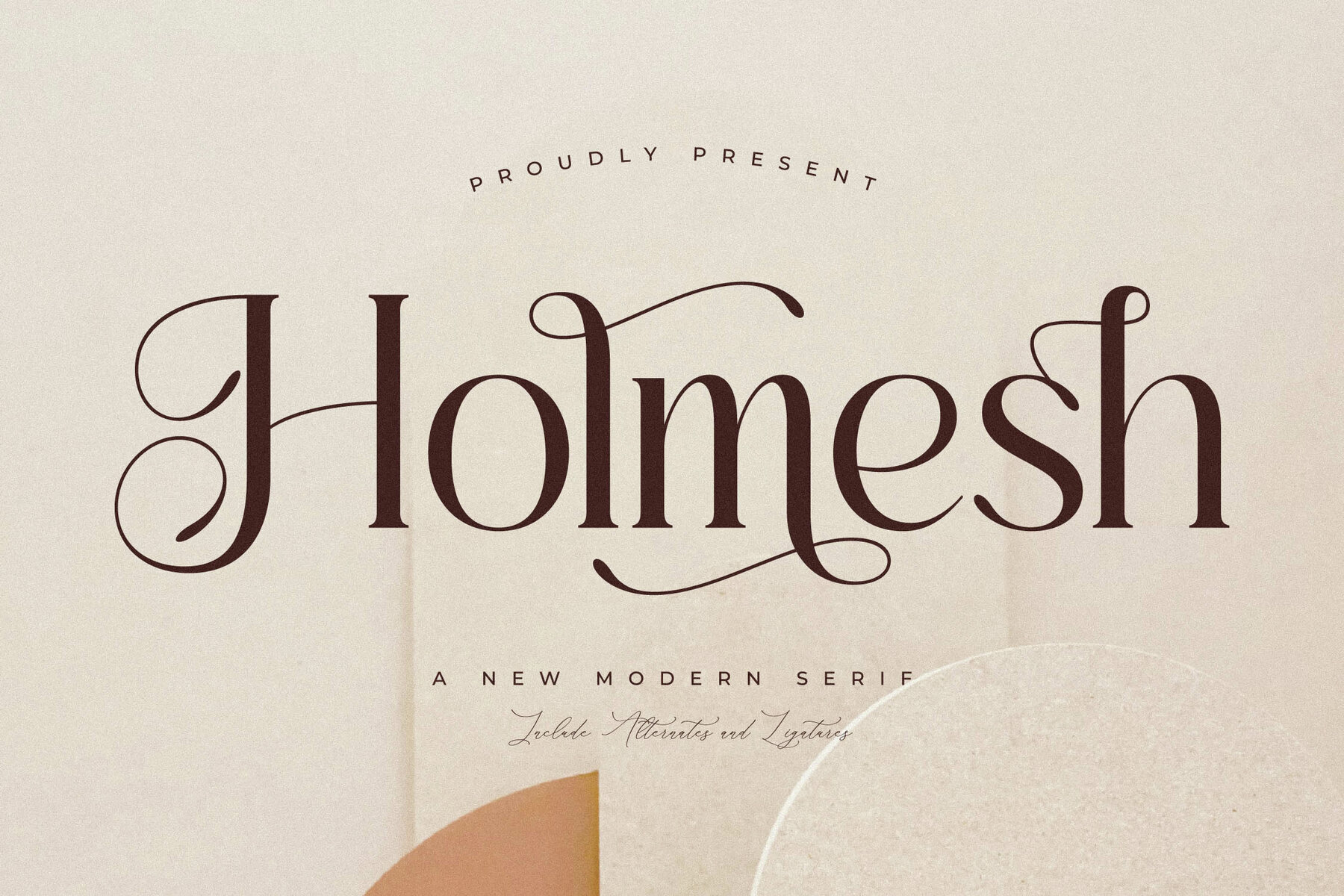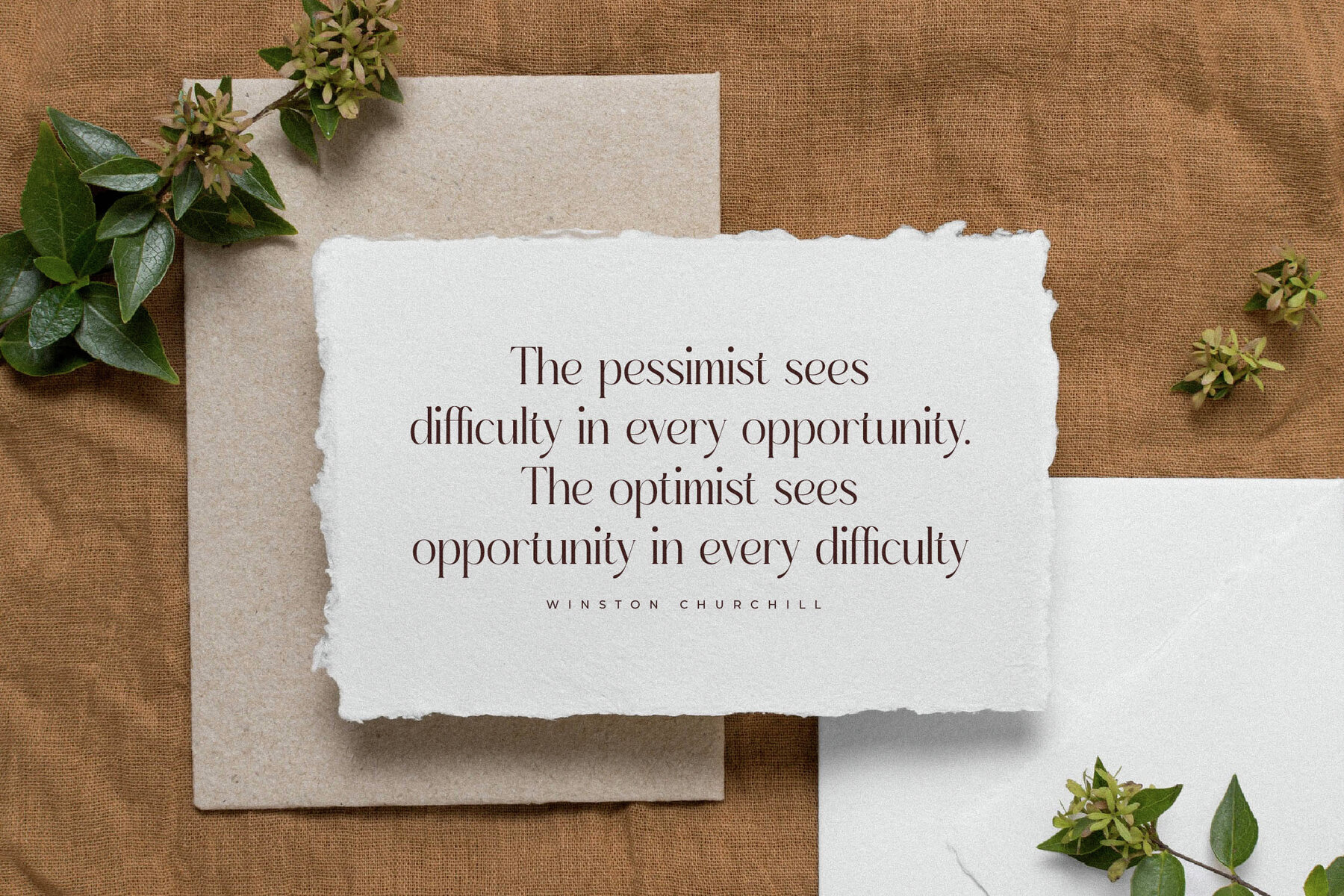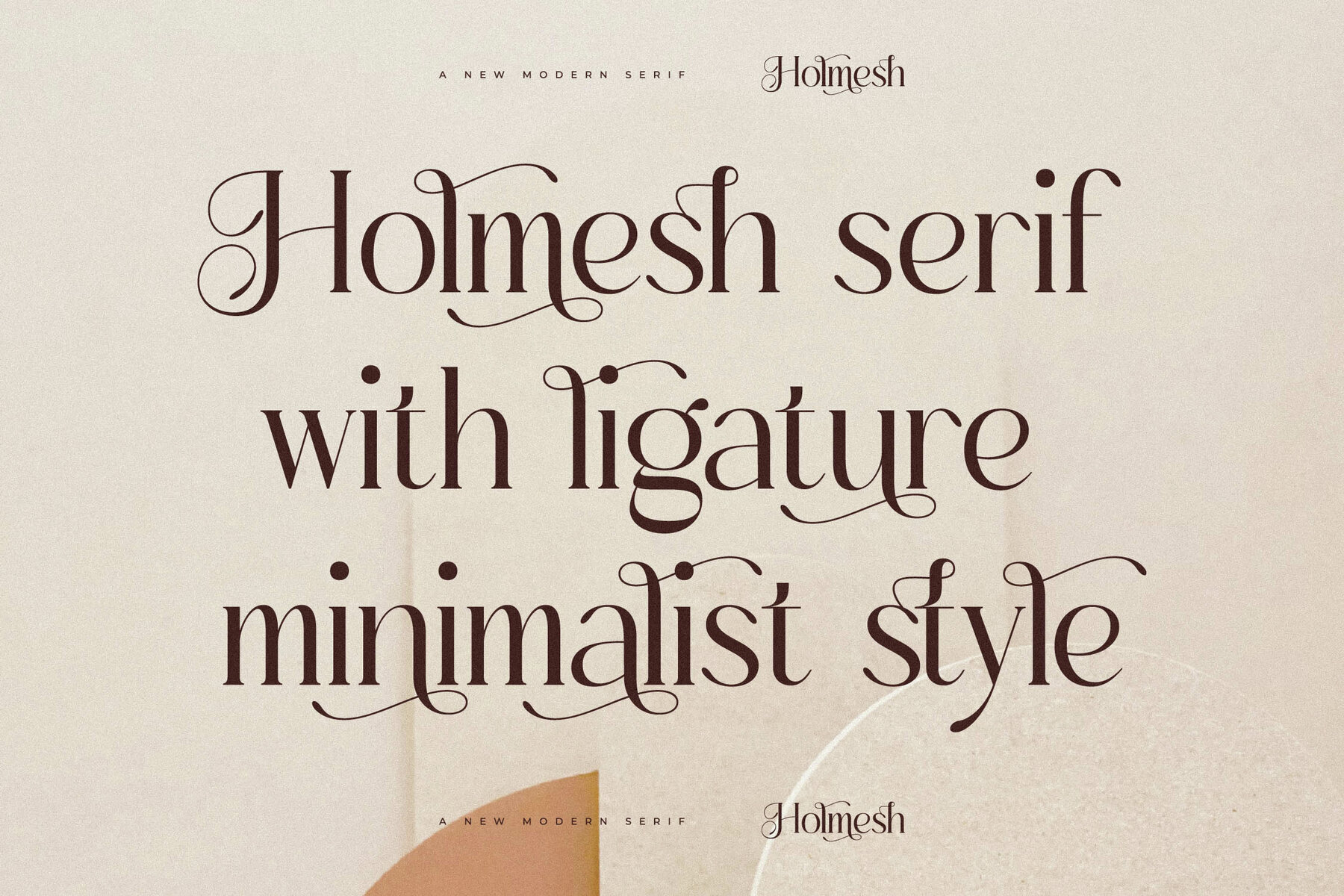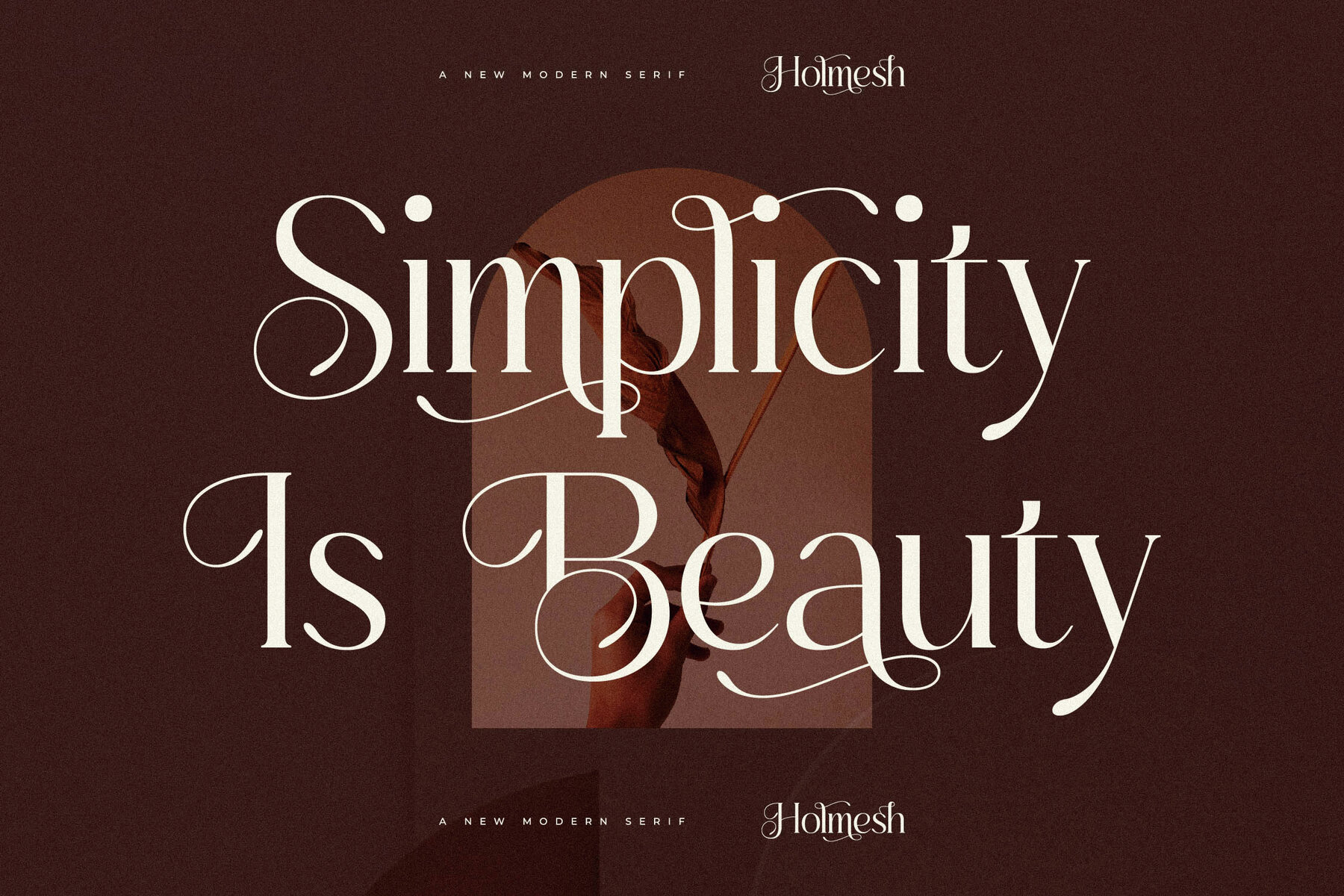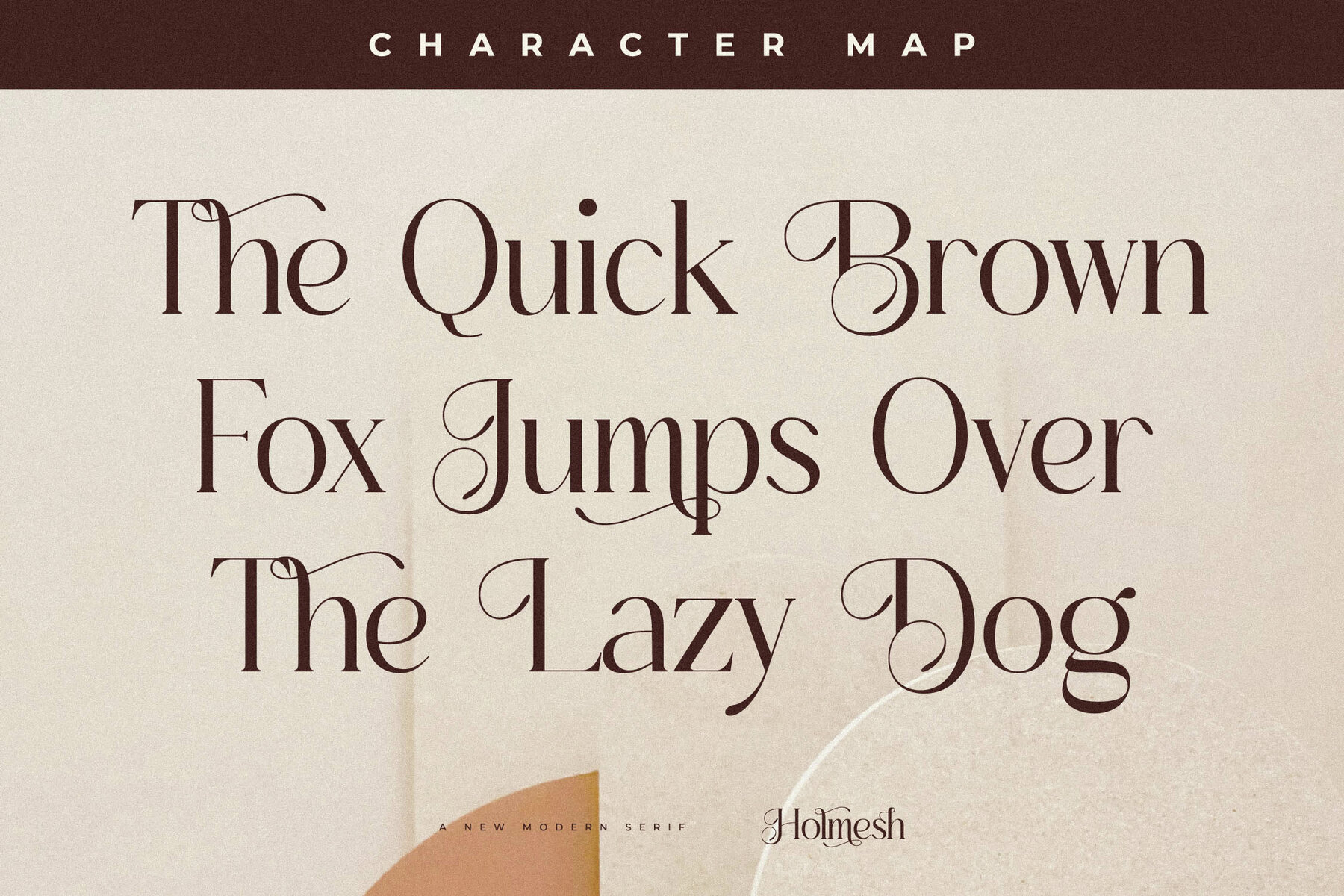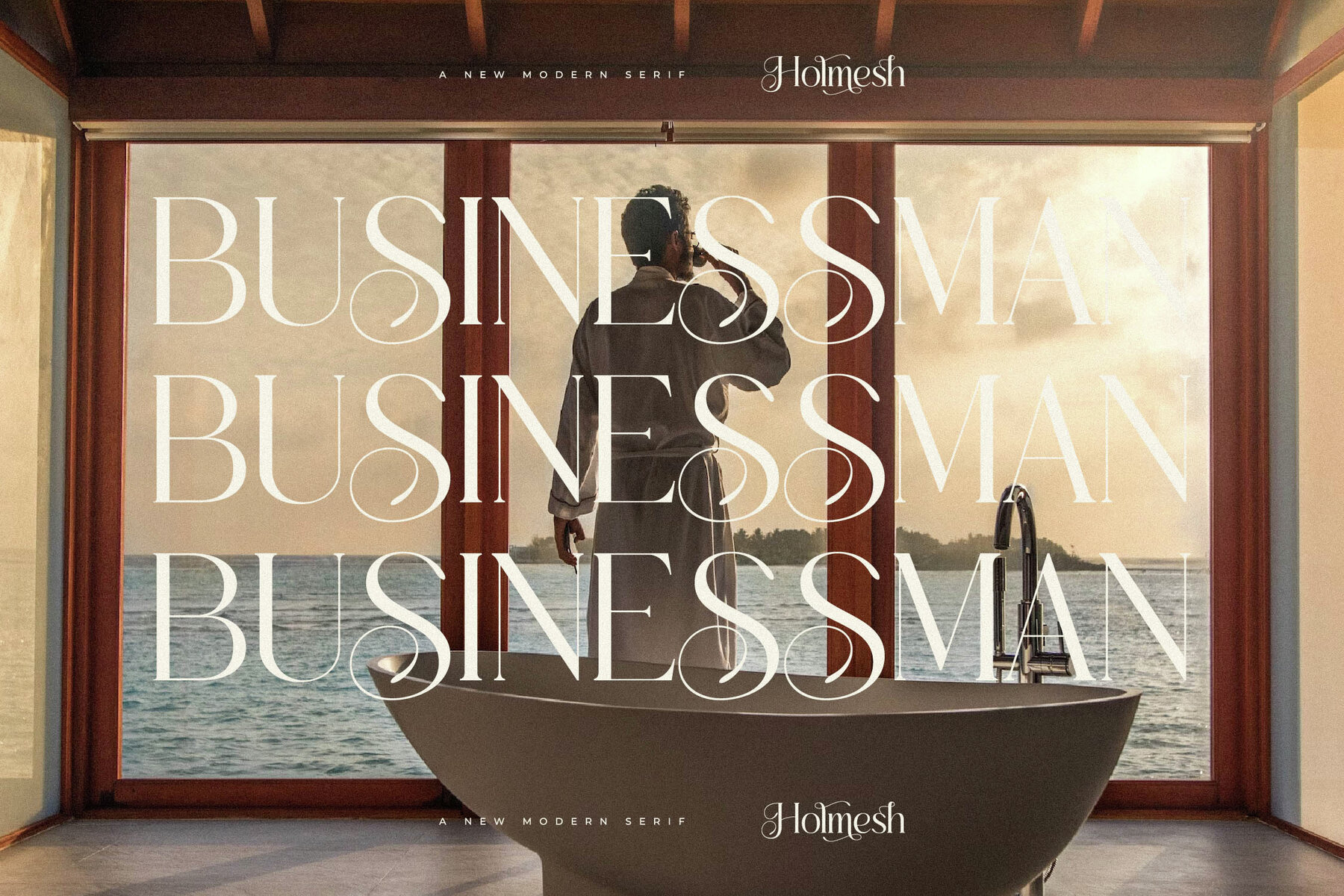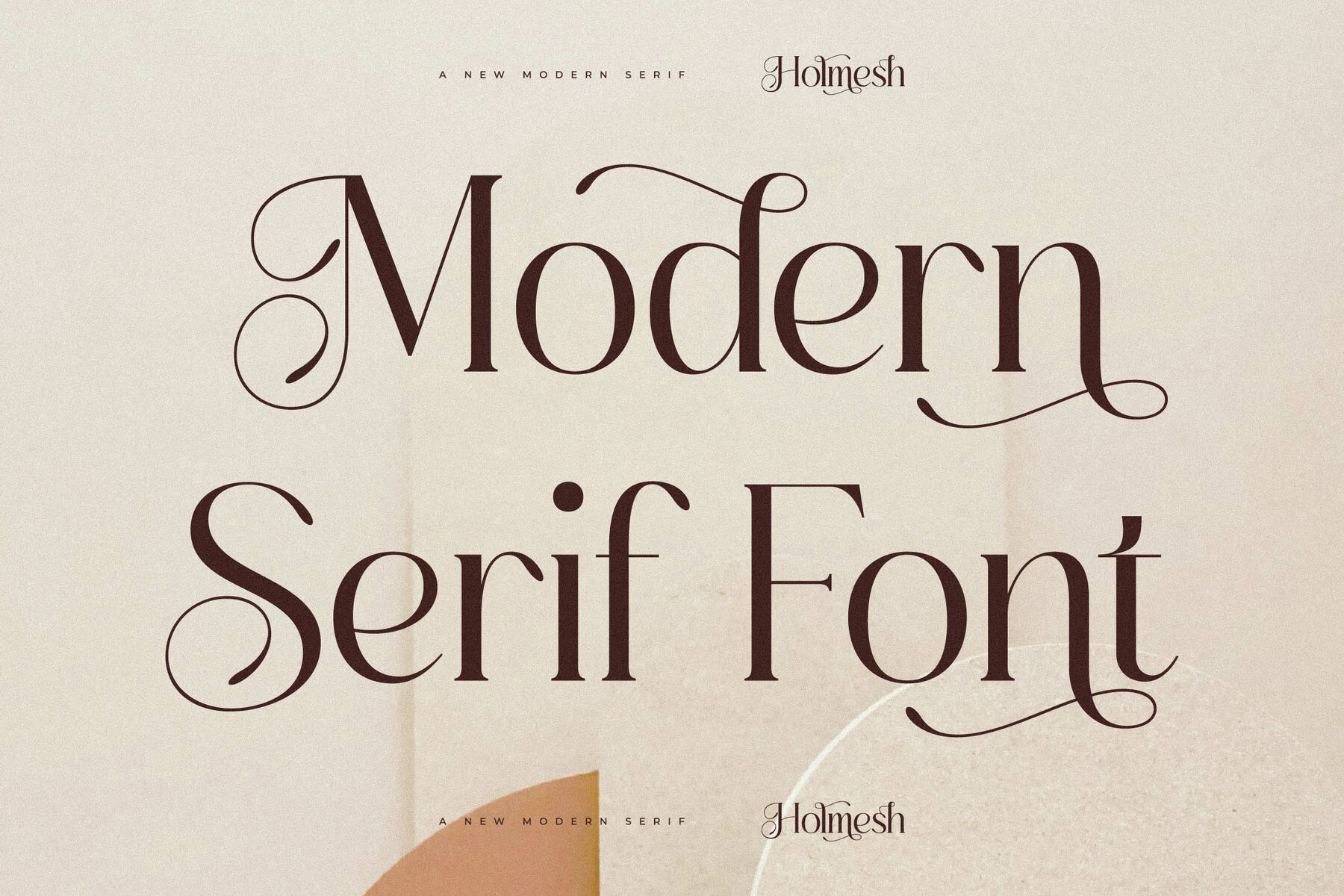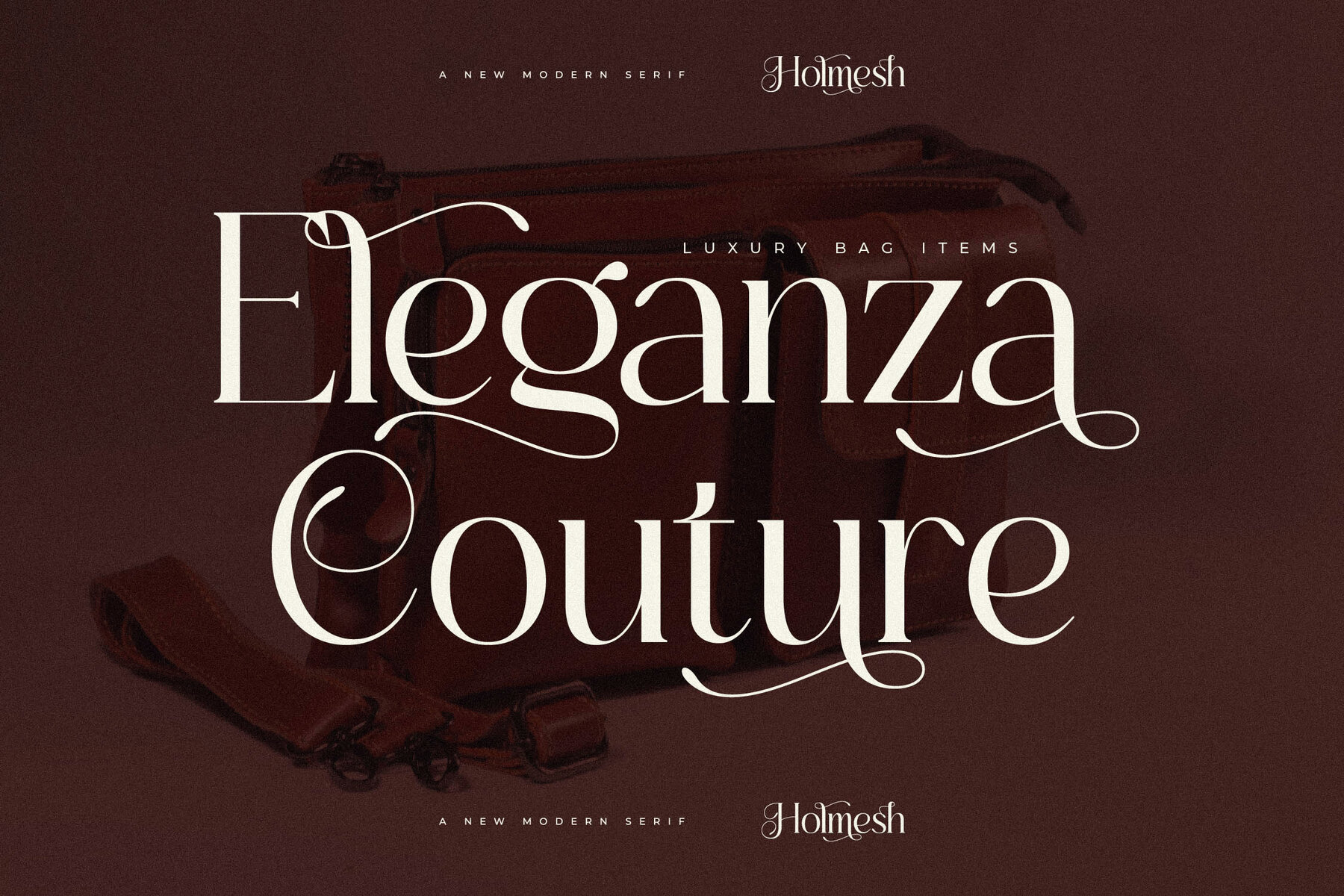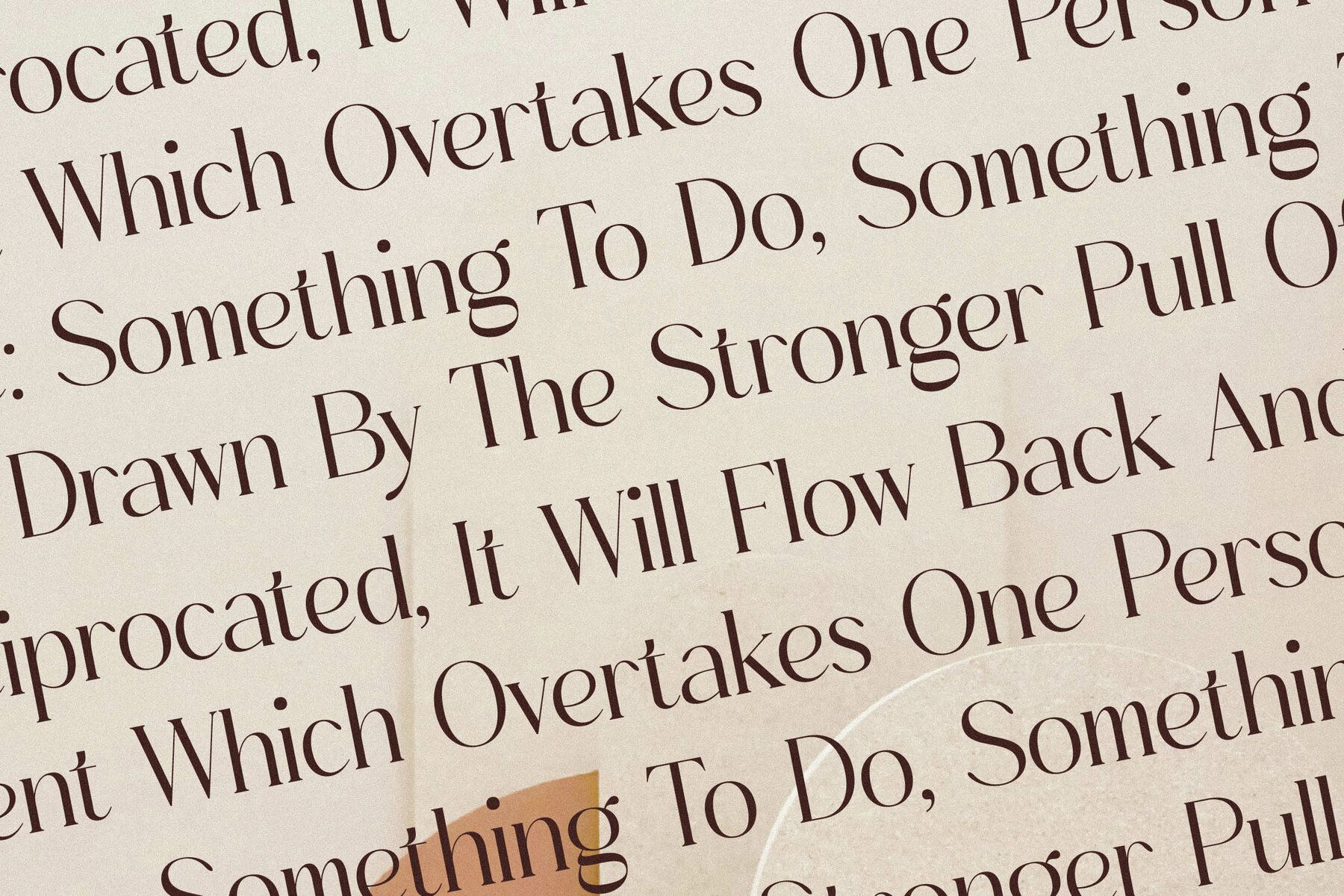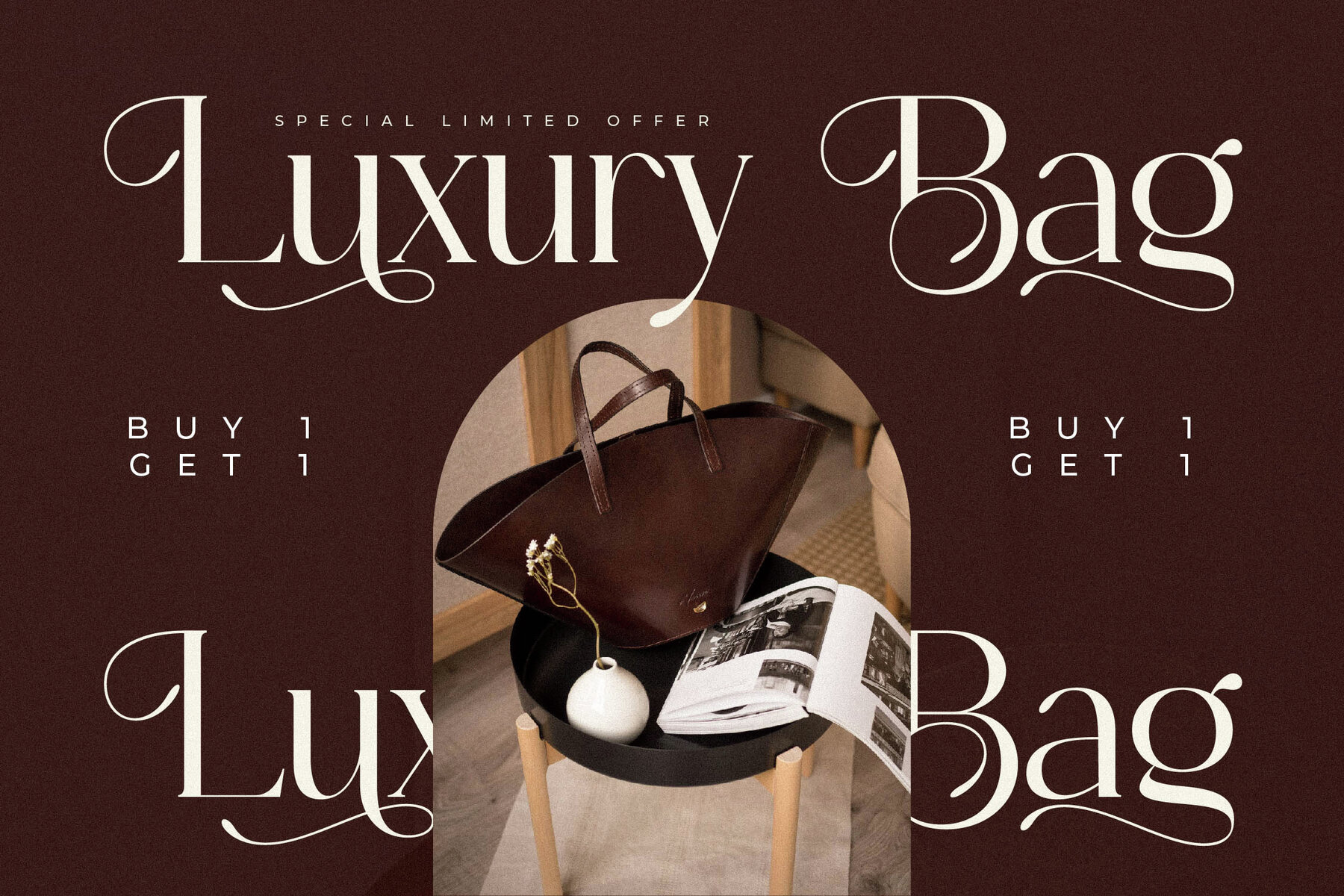
Holmesh Font
Holmesh Regular
Holmesh Italic
Discover the sophistication of the Holmesh typeface by Storytype Studio, where modern design meets classic elegance. This serif typeface promises a distinctive personality, perfect for creating luxurious logos, book or movie titles, fashion brands, magazines, clothing lines, and compelling quotes.Holmesh Typeface: Modern Elegance and Timeless Style